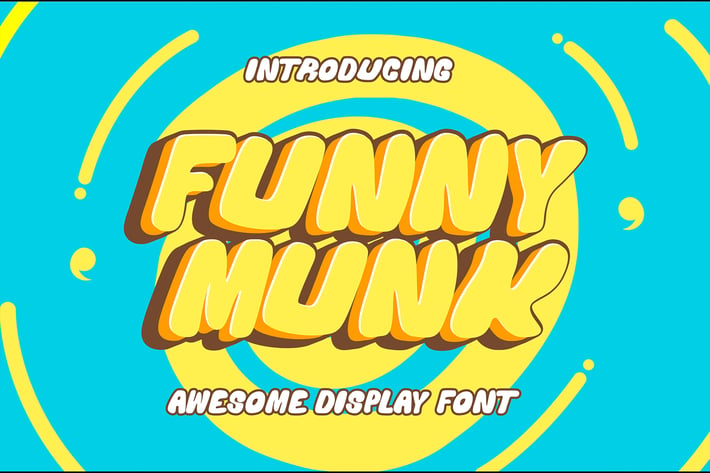
Funny Munk - Cute and Thick Display Font
Funny Munk - Cute and Thick display Font, It's friendly for design, kid store, seasonal party, or banner, fitting a wide range of contexts. Add it to your creative ideas and notice how it makes them stand out!